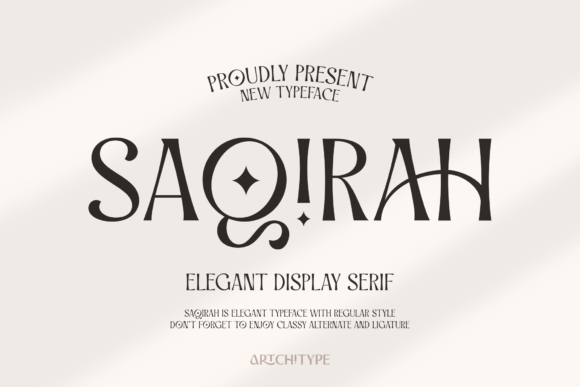
Welcome to the world of Saqirah - where elegance and legibility meet to create a captivating symphony of letters. Saqirah is not just a font; it's a statement piece, designed to elevate your designs to new heights of sophistication and style. Whether you're a seasoned designer seeking the perfect font for your next project or a novice just starting to explore the world of typography, Saqirah has something for everyone.
Born from the creative genius of Artchitype Studio, Saqirah is a serif font that exudes class and sophistication. Its carefully crafted curves and sharp edges lend an air of authority and presence to any project, making it ideal for logos, branding, and headlines. But Saqirah's allure goes beyond its aesthetic appeal. With over 270 characters, including uppercase, lowercase, multilingual support, and alternates, Saqirah is a font of limitless possibilities.
Unleash your creativity and elevate your designs with Saqirah. Picture your words adorning social media posts, product packaging, and product designs, commanding attention and leaving a lasting impression. Saqirah isn't just a font; it's a tool that empowers you to transform your vision into reality. With its versatility and elegance, Saqirah is the perfect choice for designers seeking a font that speaks volumes.
Embrace the timeless beauty of Saqirah and embark on a typographical journey like no other. Let its refined strokes add a touch of luxury to your logos, a dash of personality to your social media posts, and a dash of allure to your product designs. Saqirah is more than just a font; it's a gateway to a world of creative possibilities. Download Saqirah today and unlock the true potential of your designs.